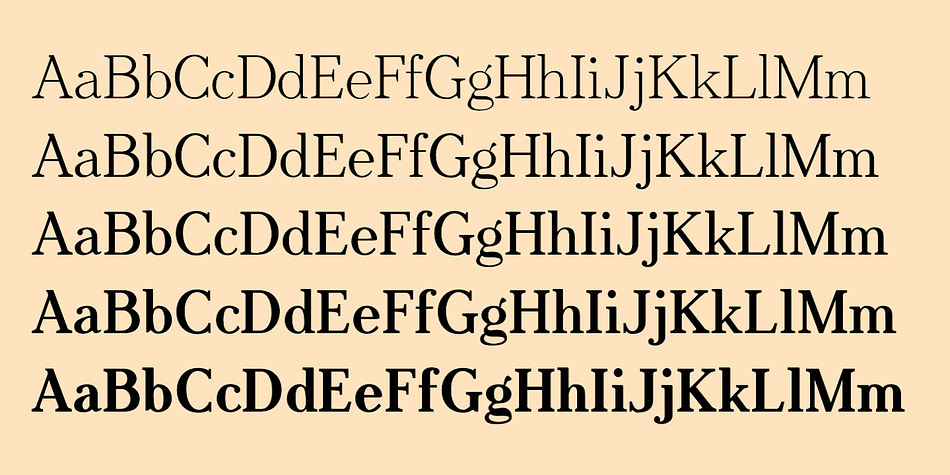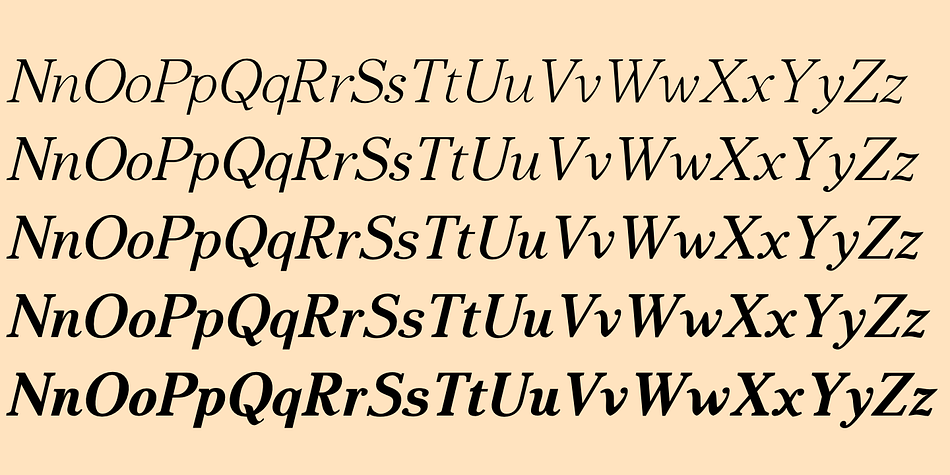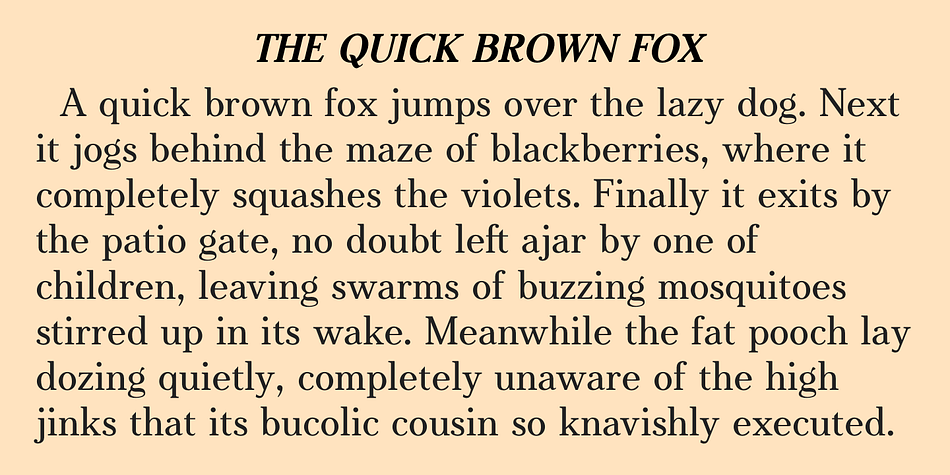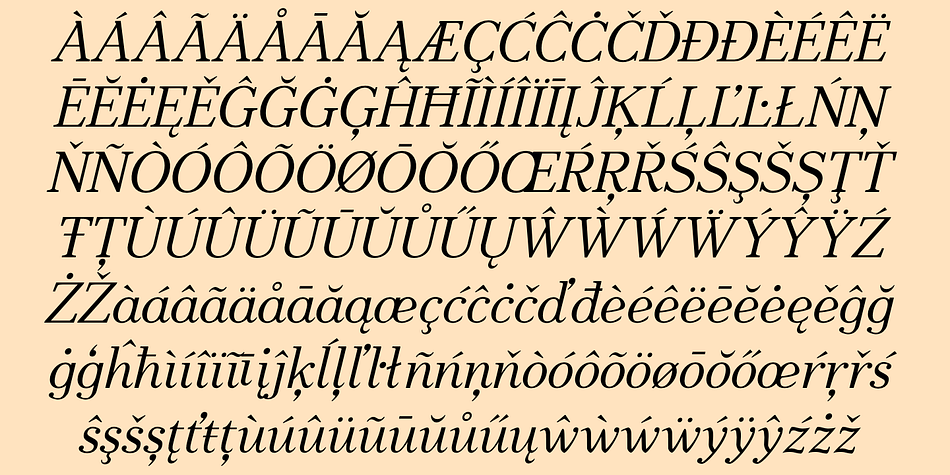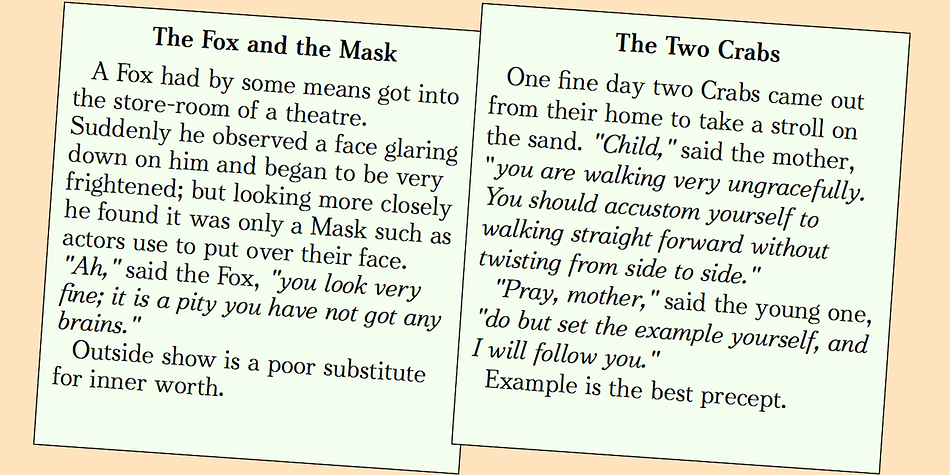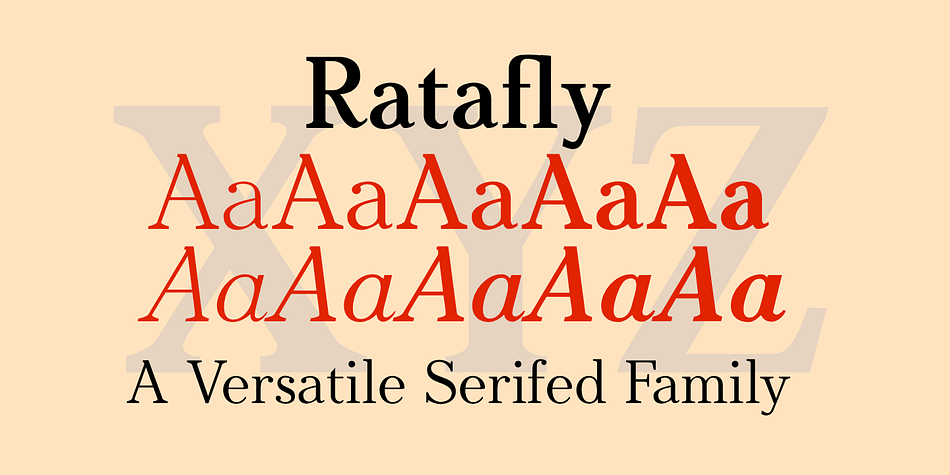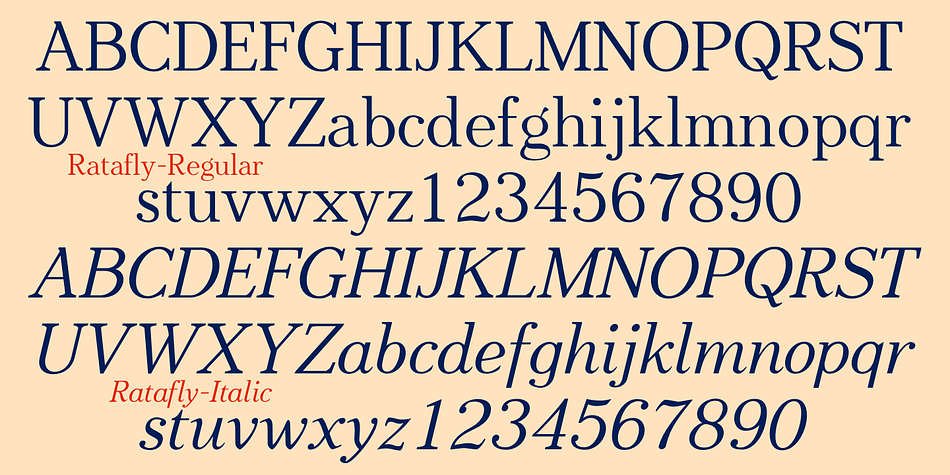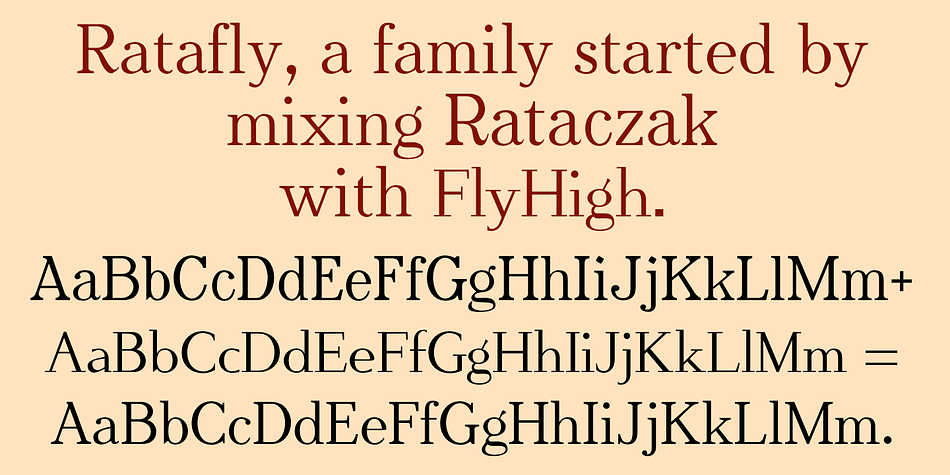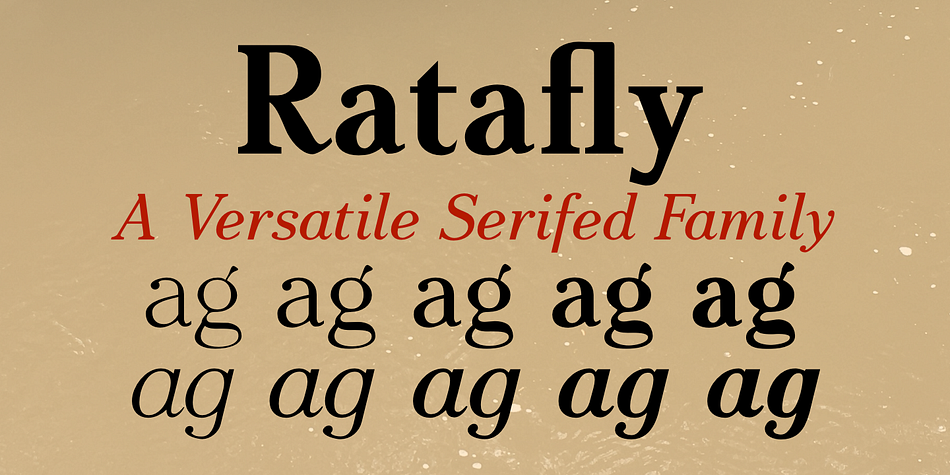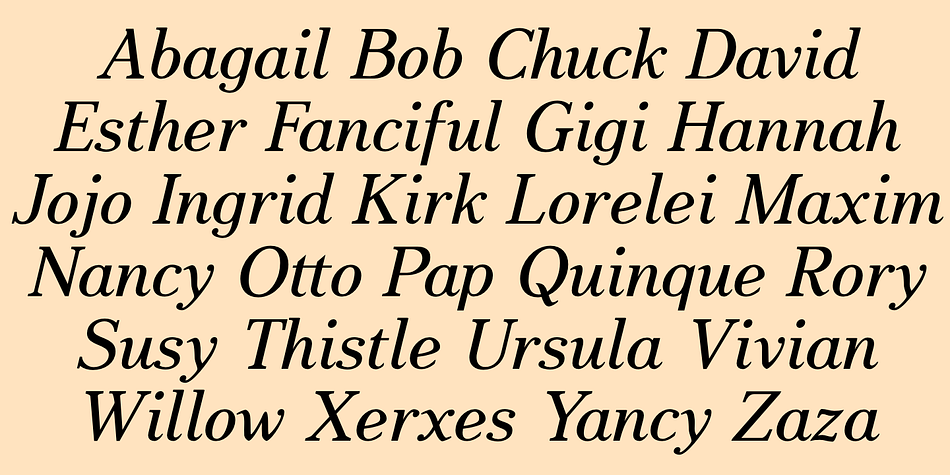
Designed by Robert Schenk, Ratafly is a serif font family. This typeface has ten styles and was published by Ingrimayne Type.
Ratafly is versatile serifed font that can be used for display or text. The family has ten styles, with five weights and italics for each weight. The name Ratafly is a reference to the origin of the family. It began by blending two very different serifed typefaces, Rataczak and FlyHigh. After a lot of cleaning up, the end result is a family that works better for book text than either of the parents.